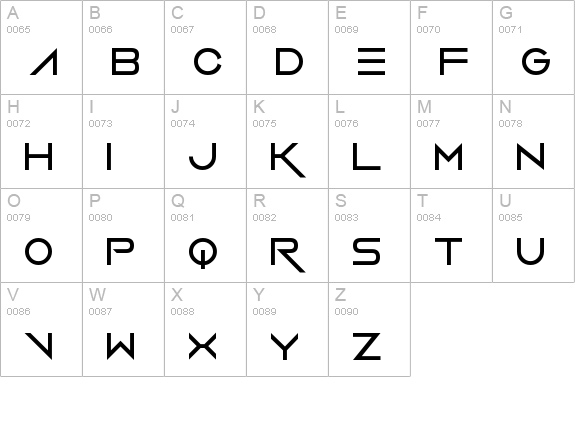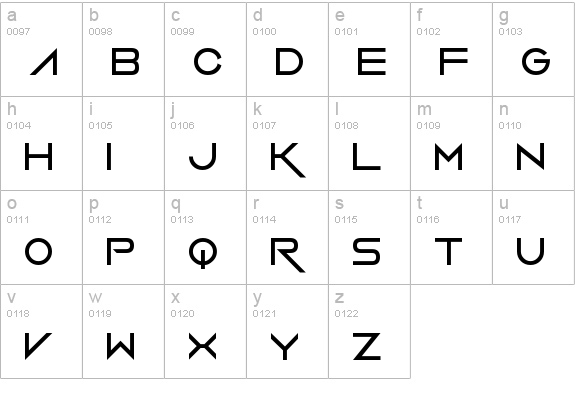
Vermin Vibes 2 is a captivating and versatile font that will bring a touch of edgy sophistication to your designs. With its bold and striking letterforms, this font exudes a unique and modern vibe that is perfect for a wide range of projects. Whether you are creating a poster, logo, or website, Vermin Vibes 2 will make your text stand out and command attention. One of the best features of Vermin Vibes 2 is that it is completely free to download. This means that you can use this stunning font in your personal and commercial projects without any cost. It's a font that not only enhances your designs but also fits perfectly into your budget. To get your hands on Vermin Vibes 2, simply head over to FontsMarket.com, where it is freely available for download. FontsMarket.com is a trusted source for high-quality fonts, offering a vast collection of typefaces that are both visually appealing and easy to use. With just a few clicks, you can add Vermin Vibes 2 to your font library and start incorporating its captivating appeal into your designs. So, if you're looking for a font that combines boldness, versatility, and affordability, look no further than Vermin Vibes 2. Download it for free at FontsMarket.com and unleash its unique charm on your next creative project.